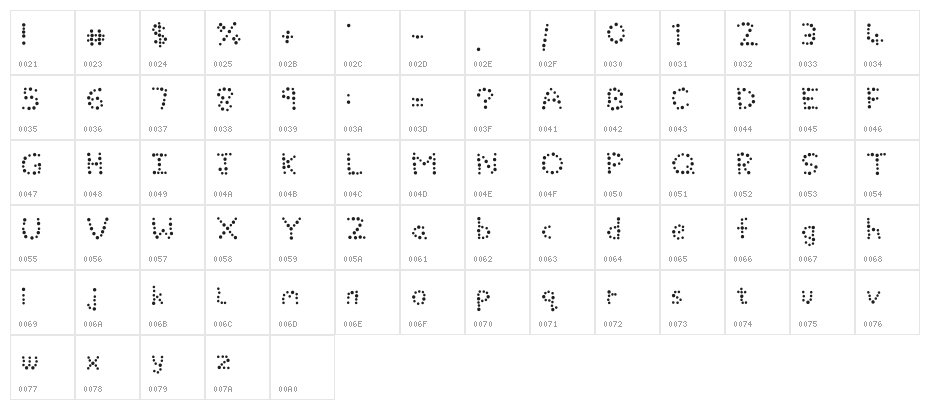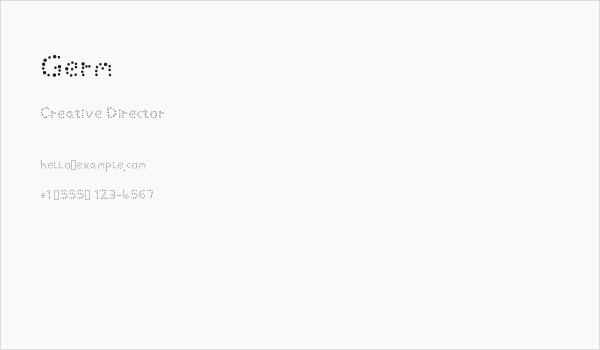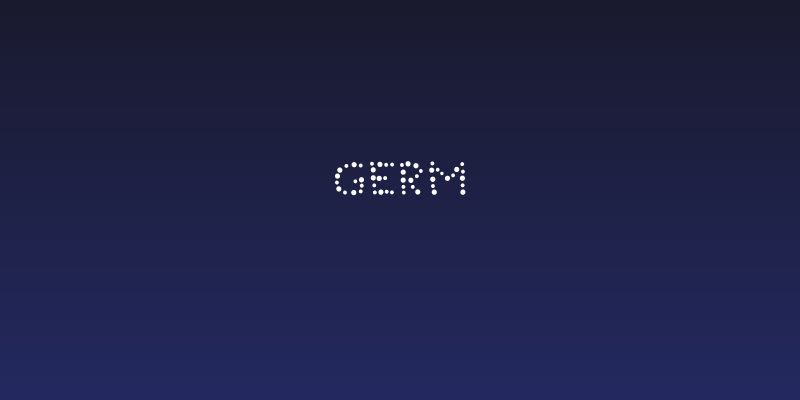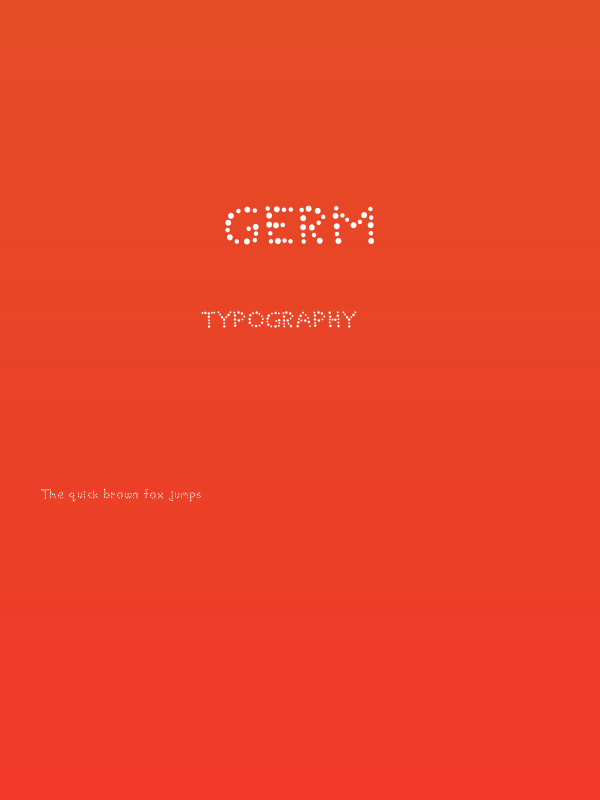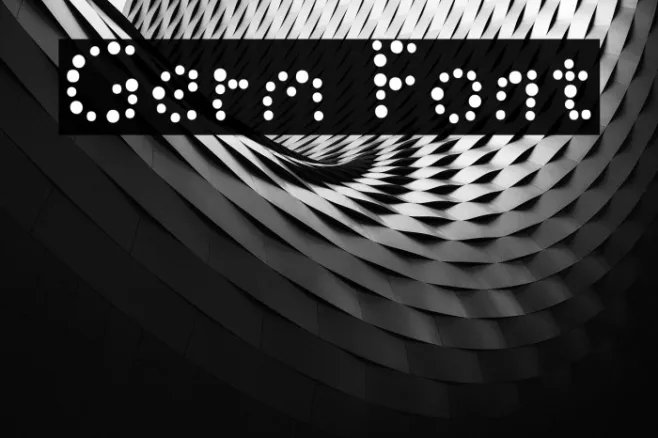
Germ Font
Germ Description
This font features a unique design composed entirely of dots, creating a playful and visually engaging appearance. Each character is formed by a series of evenly spaced circular dots, giving it a distinct and modern look. The uniformity of the dots provides a consistent texture across all letters and numbers, while maintaining legibility. This style is particularly eye-catching and can add a creative touch to any project. The font includes both uppercase and lowercase letters, numbers, and a selection of special characters, all adhering to the dotted theme. Its geometric and minimalist approach makes it suitable for a variety of design applications.
| Proposed Projects | Ideal for creative projects such as posters, logos, children's books, and digital media where a fun and modern aesthetic is desired. |